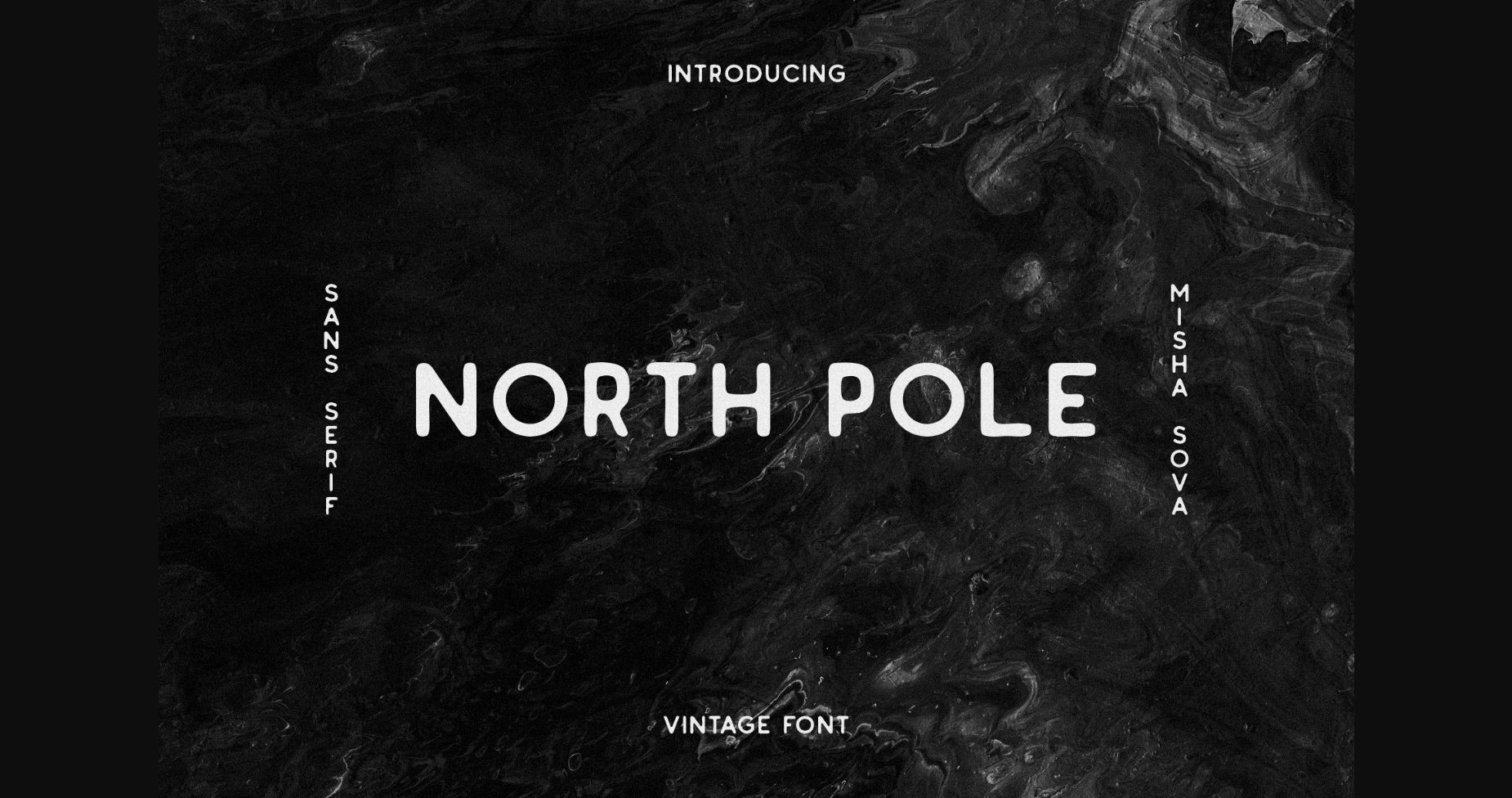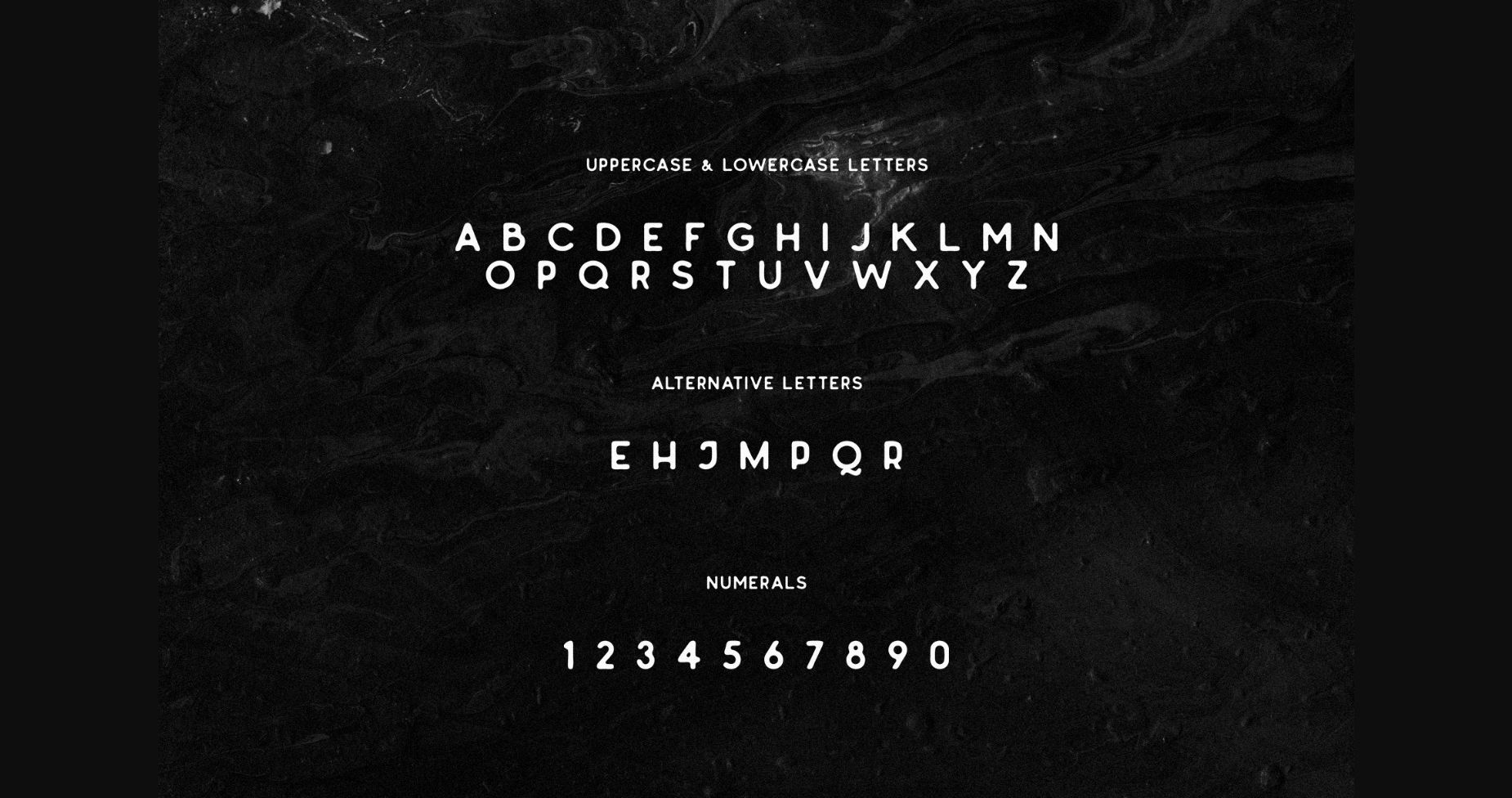
About North Pole Font
North Pole is a cool, simple and vintage looking sans serif font. Simple but with a strong visual effect, this font will instantly make your creation more appealing than any others.